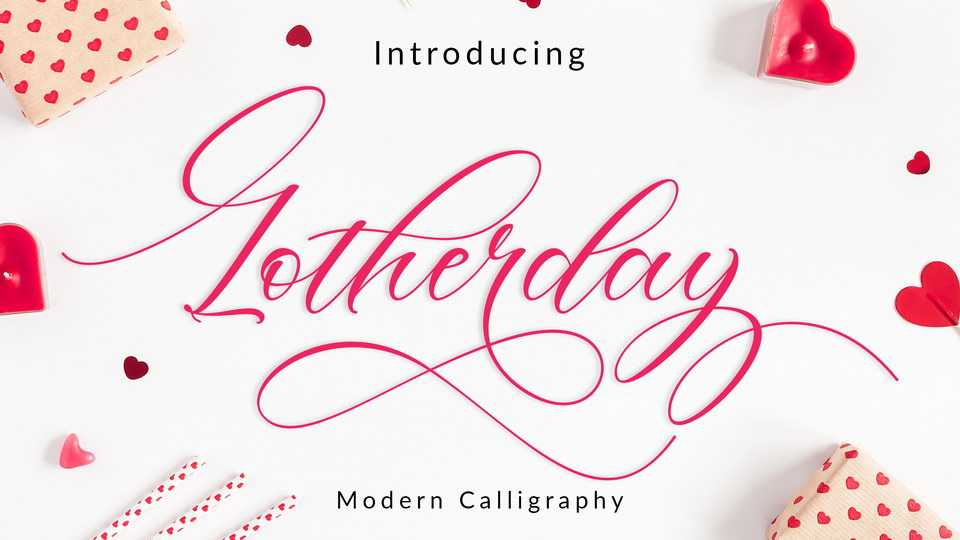
Download Lotherday font, a gorgeous modern calligraphy script. Lotherday is an excellent choice for so many printed projects – invitations, greeting cards, posters, quotes, business cards, T-shirts, branding and more.
Designer: Amar Lettering